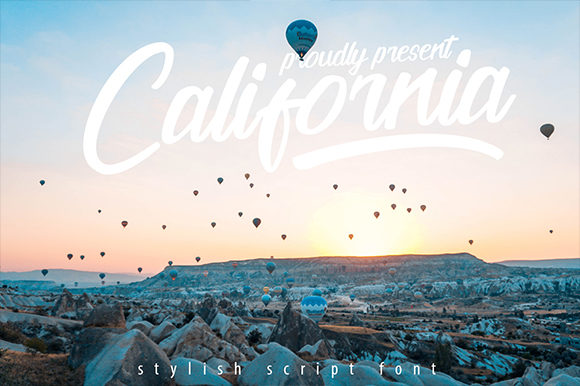
The Ultimate Summer Font: A Love Letter to California Font
Ah, the elusive perfect font. You know, that one that makes your design project go from meh to mesmerizing? I’ve been there, done that, and got the t-shirt (which, coincidentally, was designed with a fabulous font). As a designer, I’ve spent countless hours scouring the internet for that special something to elevate my work. And, let me tell you, my search ended when I stumbled upon the California Font. This hand-lettered modern calligraphy font is a game-changer, especially for those of us who adore all things summer.
First Impressions: A Timeless and Friendly Feel
There’s something undeniably charming about the California Font. Its timeless and friendly feel makes it perfect for a wide range of design projects, from wedding invitations to summer-themed branding. The font’s elegant, hand-crafted aesthetic exudes warmth and sophistication, making it an excellent choice for designers, crafters, and creative hobbyists alike.
Honest Review: The Good, the Bad, and the Quirky
- ✨ Elegant, hand-lettered design with a modern calligraphy feel
- ✅ Perfect for summer-themed projects, weddings, and elegant branding
- 💕 Timeless and friendly aesthetic that evokes a sense of warmth and sophistication
- 🎉 Extensive OpenType features, glyphs, and stylistic alternates for added versatility
- 🤔 Some users may find the font a tad too ornate for very casual or playful projects
- ⚠️ Limited availability of certain characters or ligatures in non-OpenType supporting software
The Story Behind California Font: Designer Inspiration
California Font was crafted with love and care by a talented designer who sought to capture the essence of summer in a font. Inspired by the sun-kissed beaches, warm evenings, and carefree spirit of the Golden State, this font embodies the perfect blend of elegance and playfulness. Whether you’re a designer, crafter, or creative hobbyist, California Font is sure to transport your projects to a sunny, idyllic world.
| What makes California Font unique? | California Font boasts a distinctive, hand-lettered modern calligraphy design that exudes a timeless and friendly feel, perfect for summer-themed projects and elegant branding. |
| Does California Font support OpenType features? | Yes, California Font comes with extensive OpenType features, glyphs, and stylistic alternates, allowing for added versatility and creative expression. |